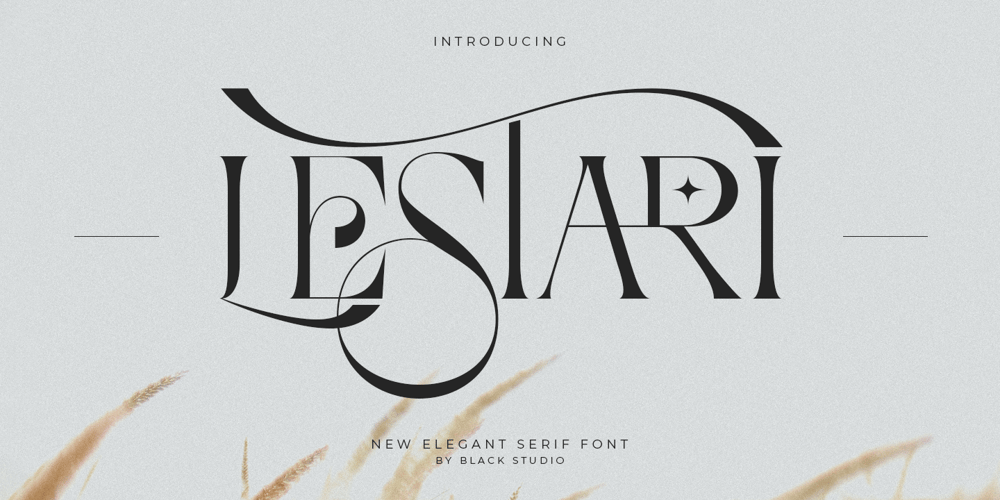
Lestari Display Font Family was designed by Reza Haitami and published by Black Studio. Lestari Display contains 1 styles and family package options. New from Black Studio, presenting Lestari is a typeface that is feminine, adaptable, contemporary aesthetic and creates endless variations for your creative needs.Its striking contrasts and subtle details, together with its sumptuous strokes and voluptuous curves, create a beautiful and powerful statement for any typographic composition, blending glamor with a contemporary aesthetic.This type of family has become the work of true love, making it as easy and fun as possible.